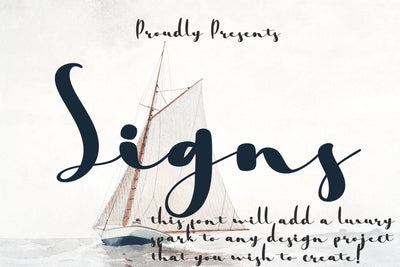
Signs - Handwritten Font
Signs is mazing hand lettering look attractive and natural!
Script font carefully created with a touch of elegance.
Whether you’re looking for fonts for Instagram or calligraphy scripts for DIY projects,
this font will turn any creative idea into a true piece of art!